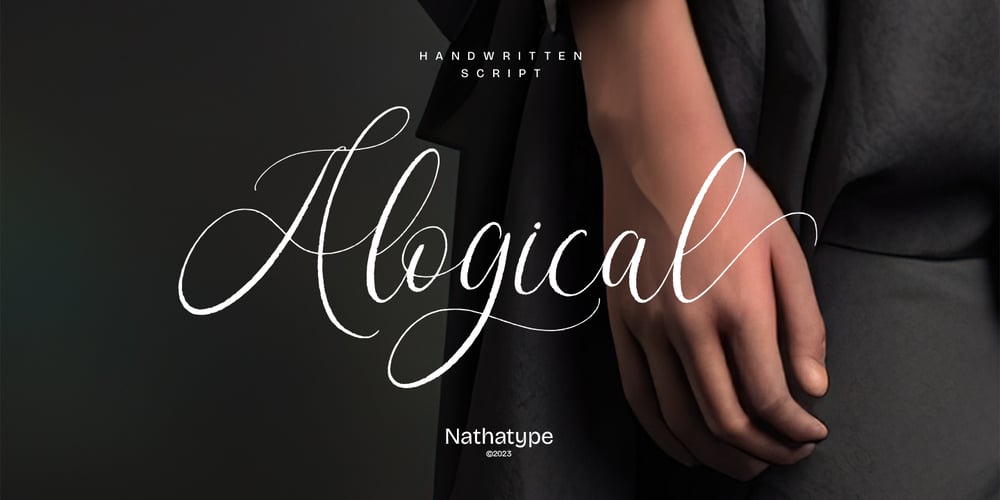
Alogical Font Family was designed by Donis Miftahudin and published by Nathatype. Alogical contains 1 styles and family package options. Alogical is a script font that captures a touch of eloquence. Each letter in this font is crafted with high contrast outlines, adding a dynamic and eye-catching quality to the font. The combination of bold strokes and delicate lines enhancing the overall visual appeal. The swaying circular finish lines bring a sense of movement and grace to the font. With its flowing letterforms, Alogical offers a natural writing style. For the best legibility you can use this font in the bigger text sizes.